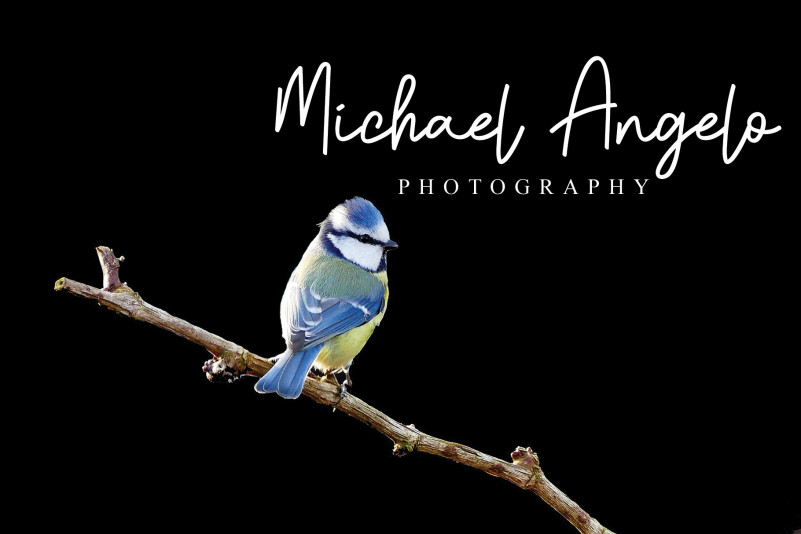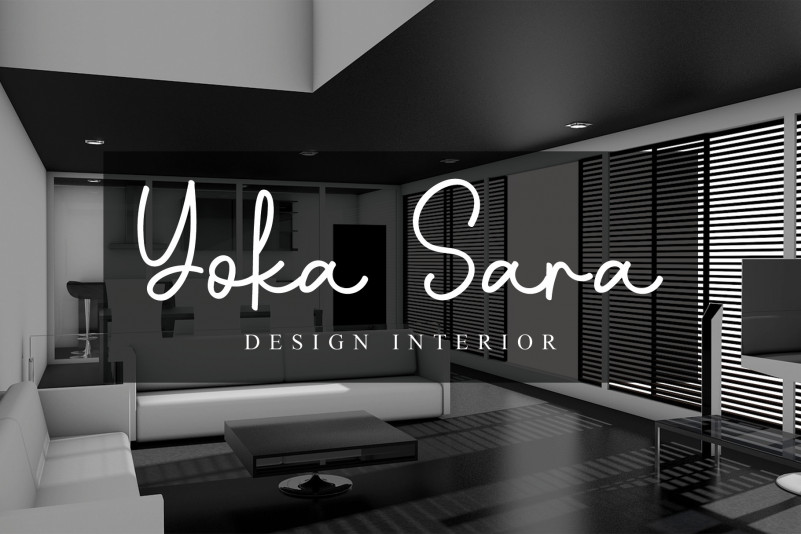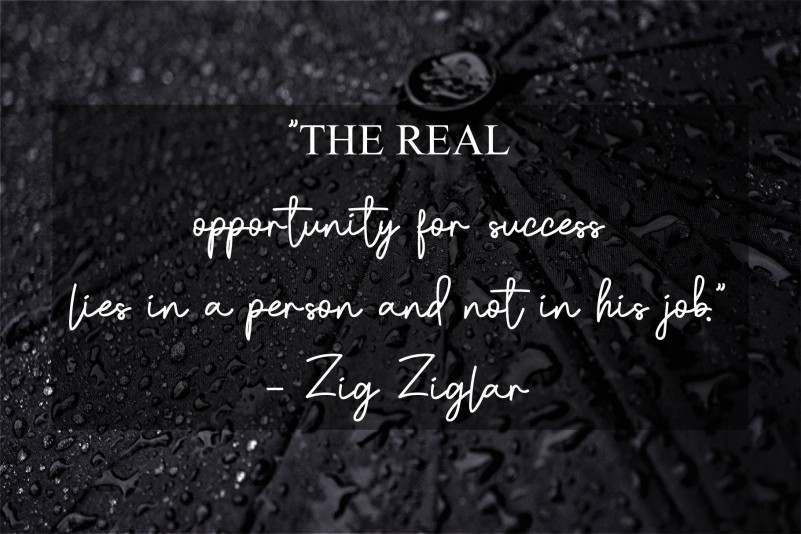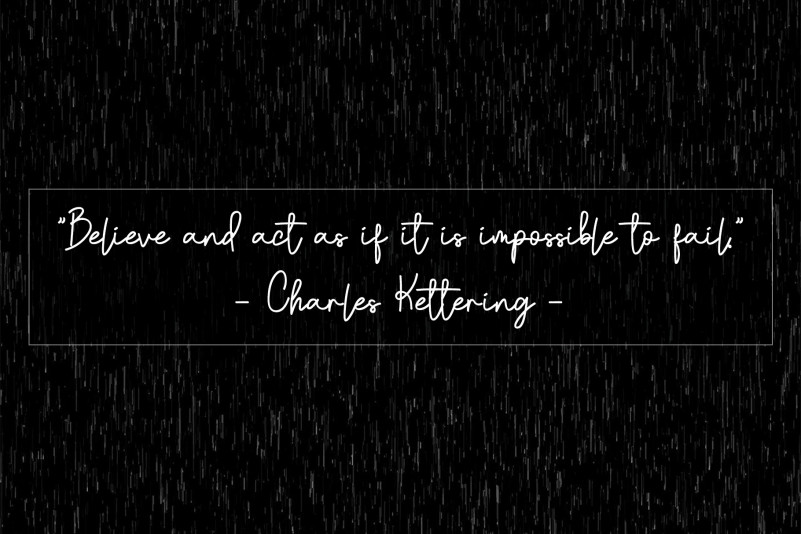
Black Jack Handwritten Font
It’s a thin and cursive handwritten font. Simple and easy to use, this font will be very beautiful if you mix it with your various craft designs.